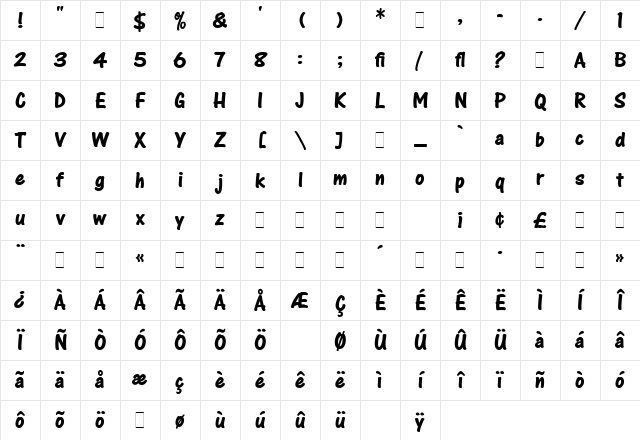
One Stroke Script Bold LET flows with the natural rhythm of handwritten lettering, making it ideal for designs that call for warmth and personal expression. Its bold stroke weight gives it real presence on the page.
Font Pairing: Combine One Stroke Script Bold LET with a simple geometric sans for maximum contrast - the tension between flowing curves and clean structure is a classic typographic pairing.
Pro Tip: Use One Stroke Script Bold LET for short runs of text - names, titles, or taglines. Extended body copy in script faces tires the eye quickly.